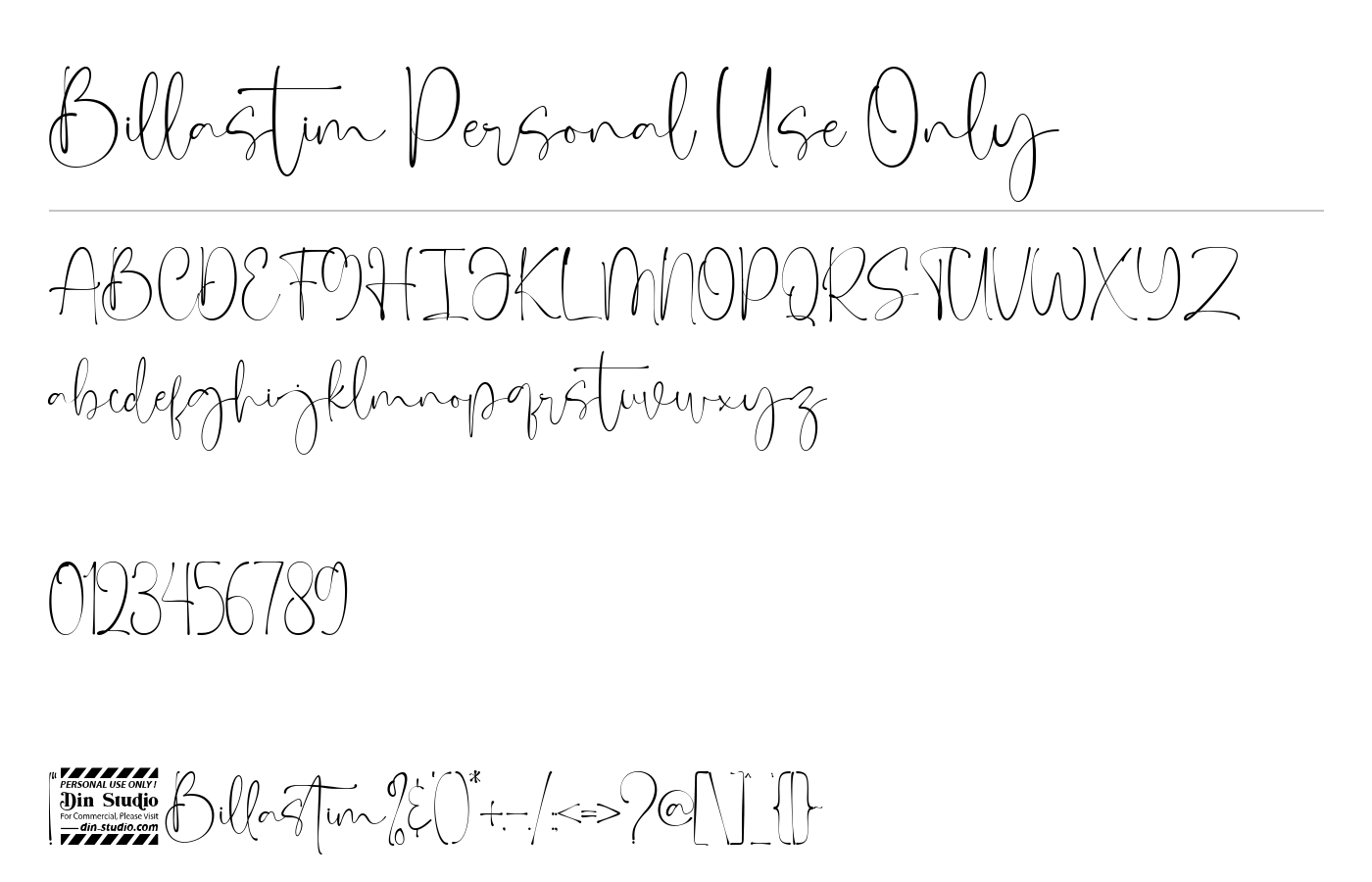
Billastim Personal Use Only is a delicate and whimsical handwritten script font featuring thin, flowing lines and elegant, tall letterforms. Its playful yet refined style makes it ideal for creative projects like invitations, personal branding, and lighthearted editorial designs where a casual but graceful touch is desired. This font’s airy and intricate appearance adds a unique, artistic flair perfect for conveying personality and charm.
Billastim Personal Use Only Font
About Billastim Personal Use Only Font